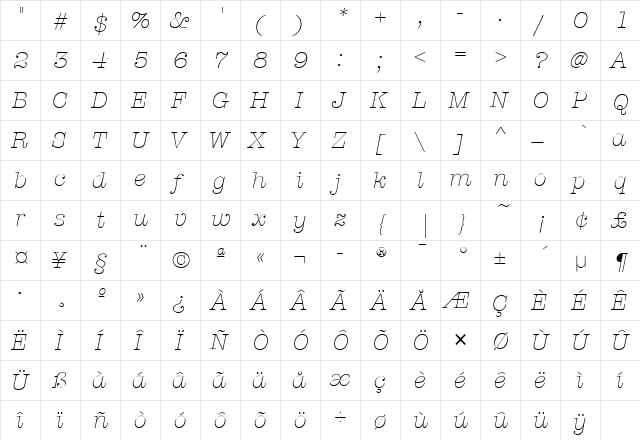
AmTypewriterITC Light Italic Font Preview
| Style | Light Italic |
| Foundry | E+F Designstudios. ITC American Typewriter is a registered trademark of International Typeface Corporation |
Design Context for AmTypewriterITC Typeface
AmTypewriterITC brings the precise, column-aligned rhythm of monospaced typography to designs that value technical clarity and systematic order. Its italic angle brings a sense of urgency and motion to the letterforms. Its slender proportions lend an understated elegance to any composition.